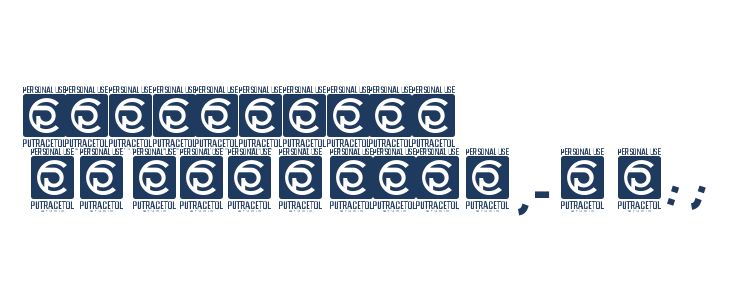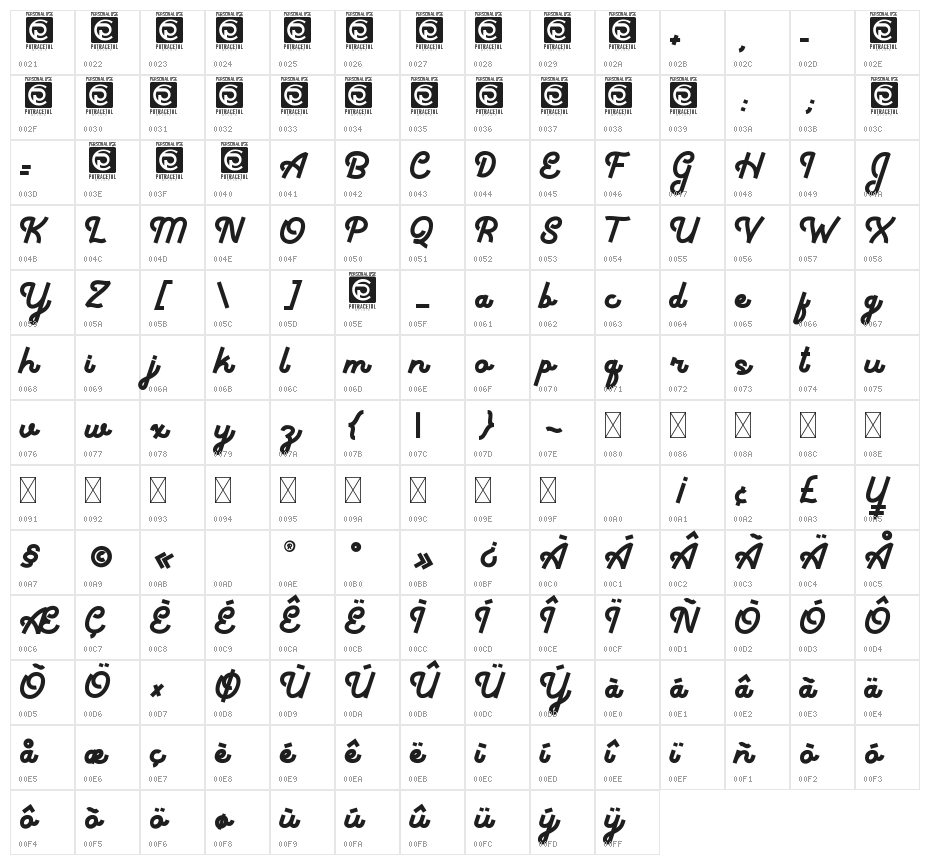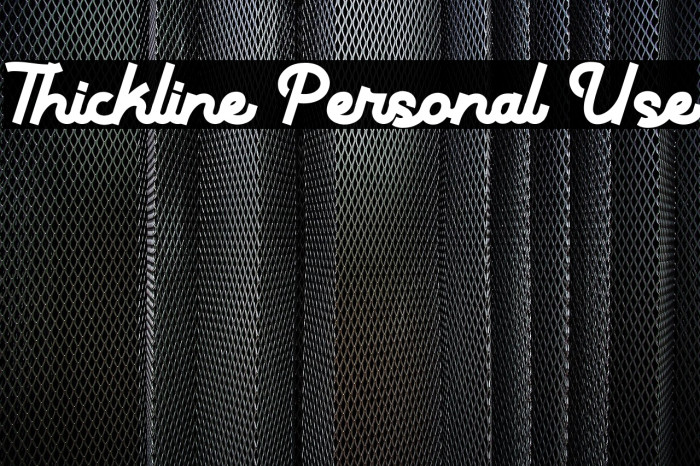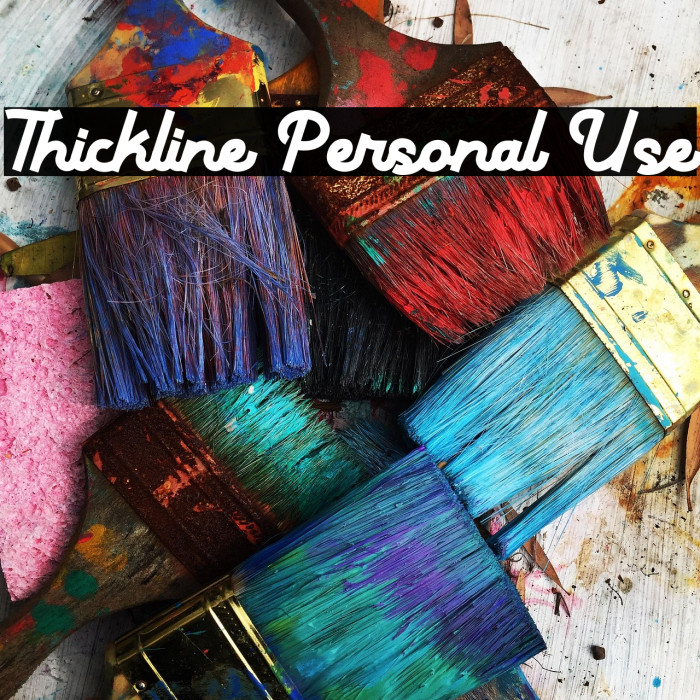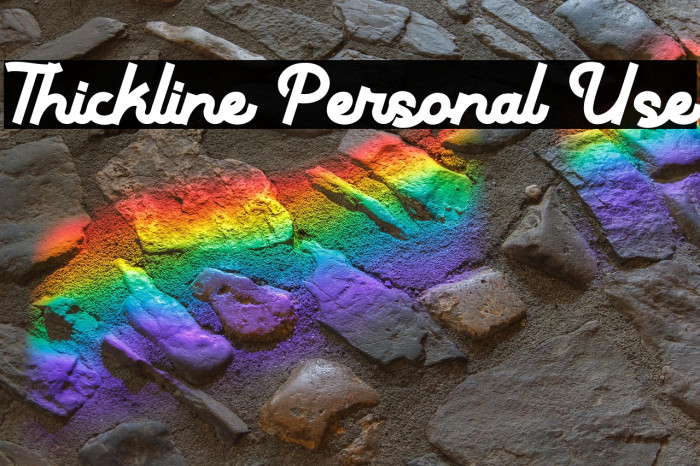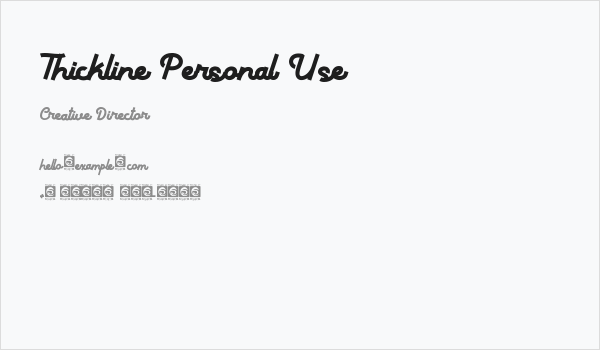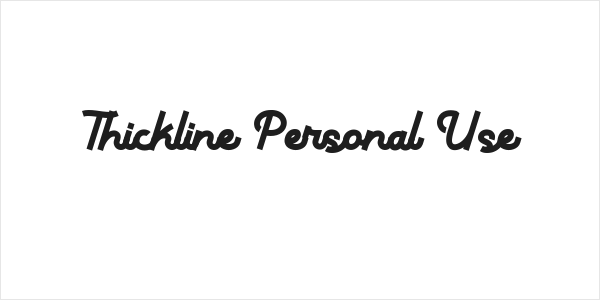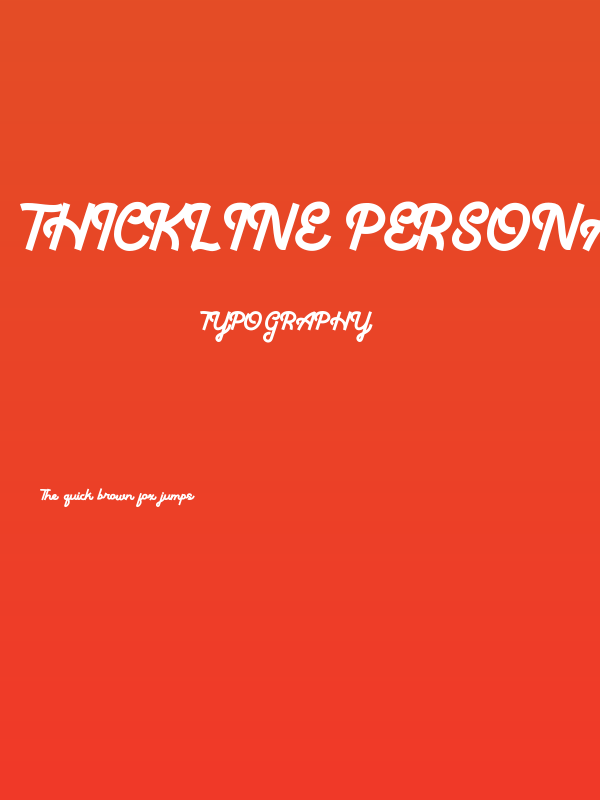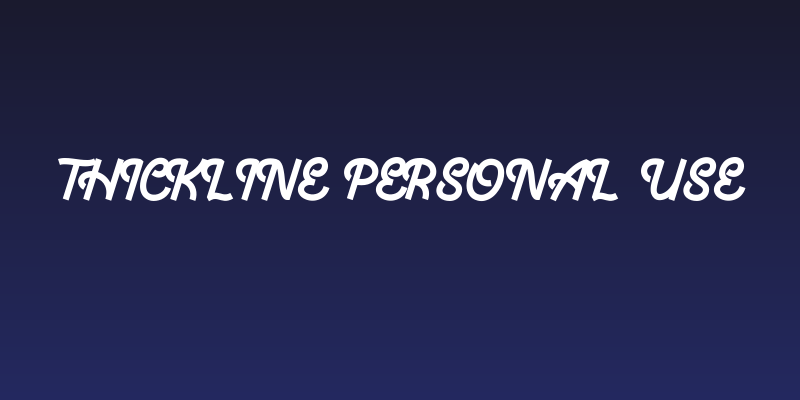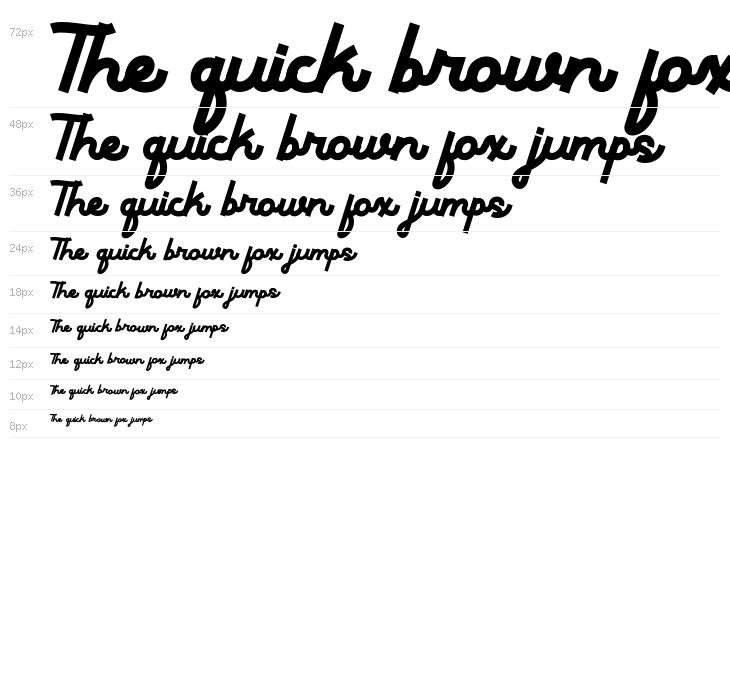
Thickline Personal Use Font
Thickline Personal Use Description
This font features a bold and flowing script style with a strong presence. The letters are interconnected, creating a seamless and dynamic look. The uppercase characters maintain a consistent height, while the lowercase letters exhibit a slight slant, enhancing the fluidity of the design. The strokes are thick and uniform, contributing to the boldness of the font. The overall appearance is modern and stylish, making it suitable for eye-catching designs. The special characters are integrated smoothly, maintaining the cohesive aesthetic of the font.